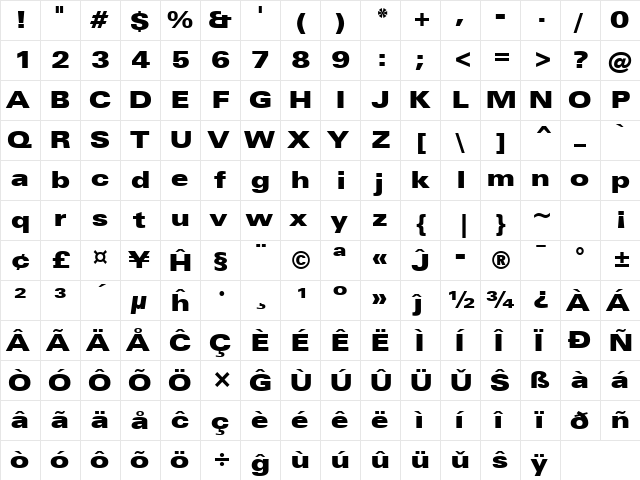
Zurich Eo Ultra Black
Design Context for Zurich Eo Typeface
Zurich Eo is a composed and adaptable typeface that performs quietly and consistently across a wide range of design contexts.
Pro Tip: Pair Zurich Eo with a font of contrasting weight or personality to build a more expressive typographic hierarchy.